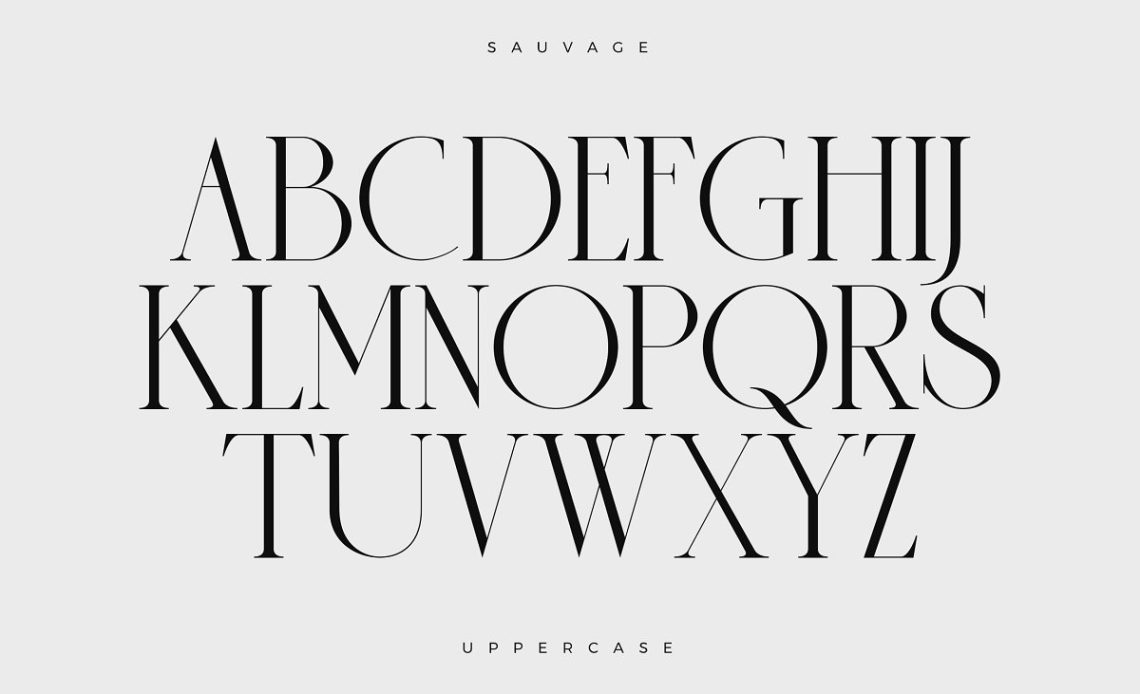
Introducing Sauvage - the elegant, art deco-inspired serif font that will add a dangerously elegant twist to any design. Sauvage is a smooth criminal, with beautiful alternate characters, creative ligatures, and multilingual support. Created by SG Type, this wild and majestic typeface is perfect for branding, magazine design, logo design, headlines, posters, packaging, cards, or your wedding invitation.
Sauvage is not your average serif font. Although the inspiration for this typeface comes from the Art Deco era, Sauvage feels modern and contemporary. The large selection of stylistic alternations and ligatures makes this font extremely versatile, and its comprehensive language support means that it can be used for a wide range of design projects.
With uppercase and lowercase characters, alternative glyphs, and a big range of numbers, symbols, and punctuation, Sauvage gives you the flexibility to create designs that are as unique as you are. And for the pros, individual kerning and an extensive range of characters are also included.